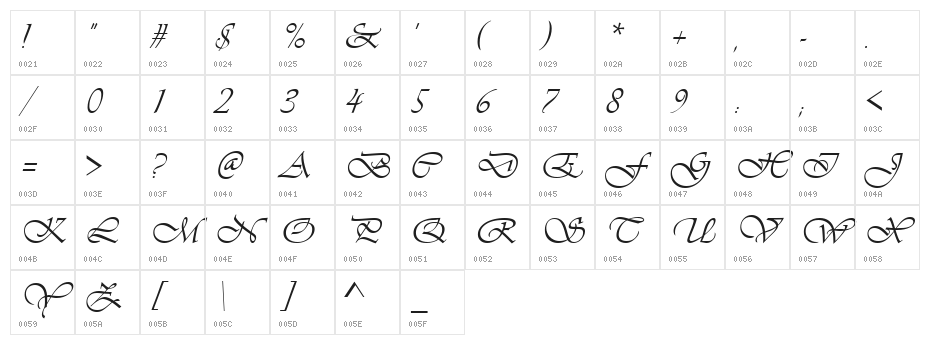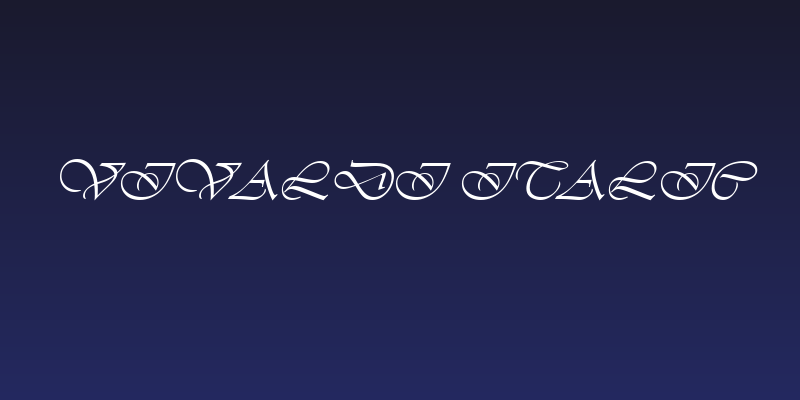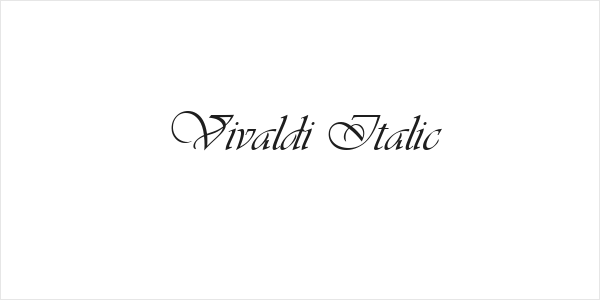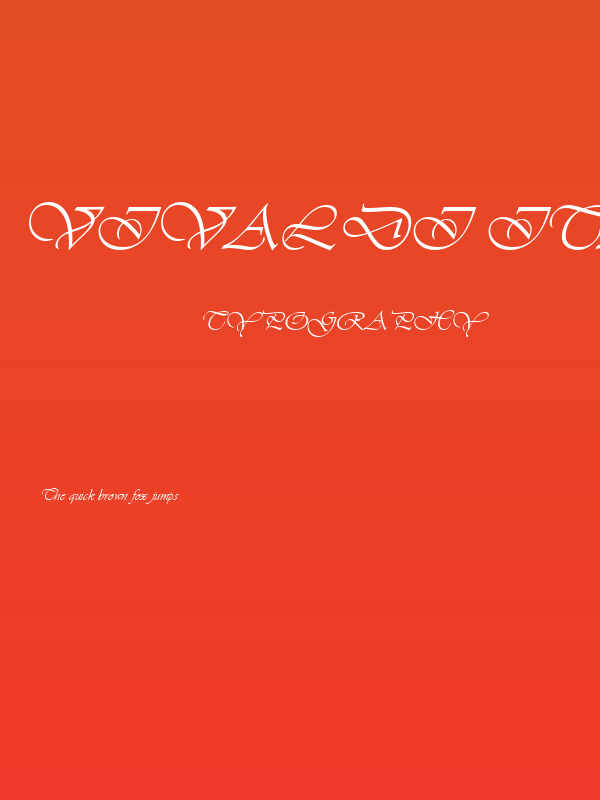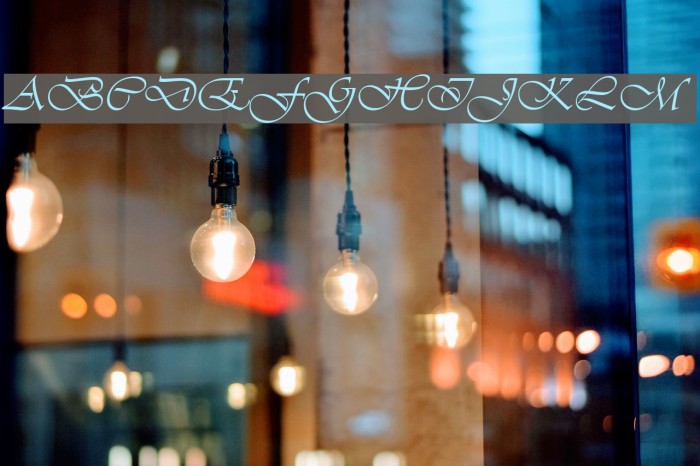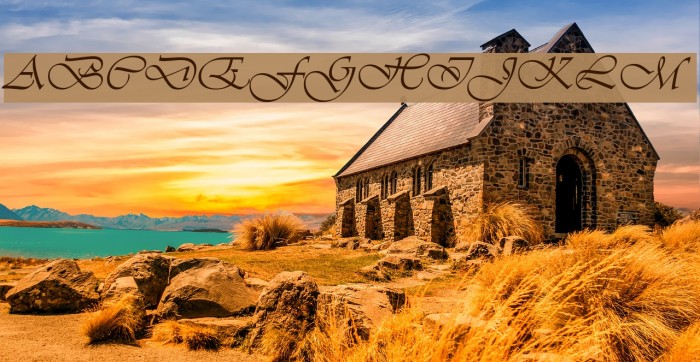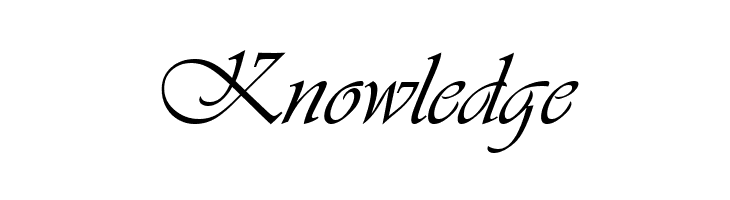
Vivaldi Italic Font
Vivaldi Italic Description
This font exudes elegance and sophistication with its flowing, cursive style. The letters are intricately designed with graceful curves and flourishes, giving it a classic and timeless appeal. The uppercase letters are particularly ornate, featuring elaborate loops and swashes that add a touch of grandeur. The lowercase letters maintain a consistent slant, enhancing the overall fluidity of the typeface. The numerals are styled to match the letters, with a similar emphasis on curves and elegance. Special characters are also thoughtfully crafted, maintaining the font's cohesive aesthetic. This font is ideal for projects that require a touch of elegance and formality, such as wedding invitations, formal event programs, or luxury branding.
| Overall Style | Classic |
| Proposed Projects | Ideal for wedding invitations, formal event programs, luxury branding, and elegant signage. |